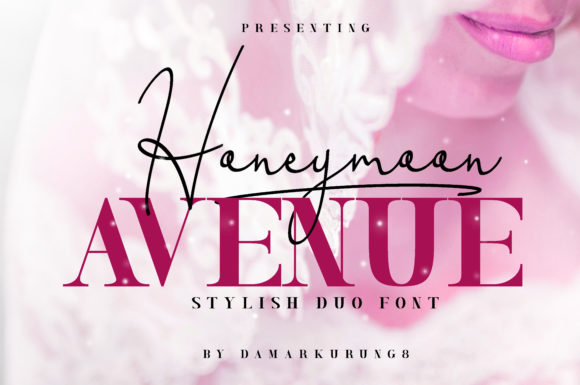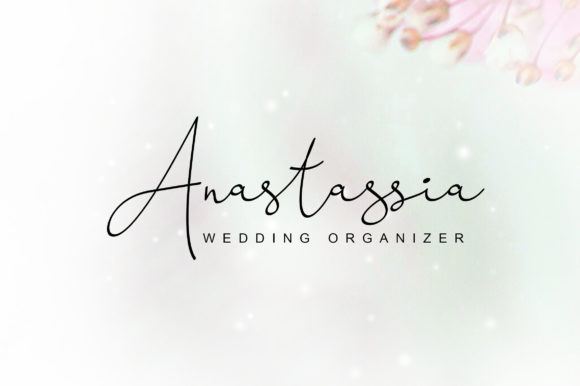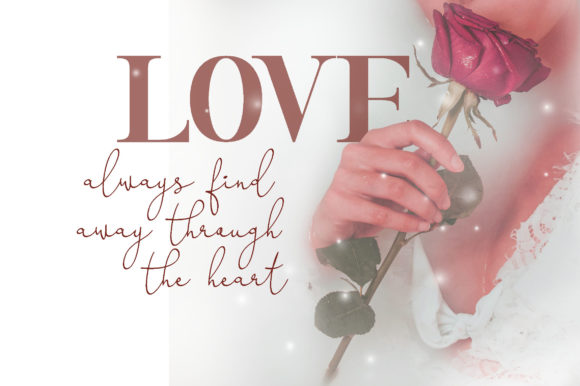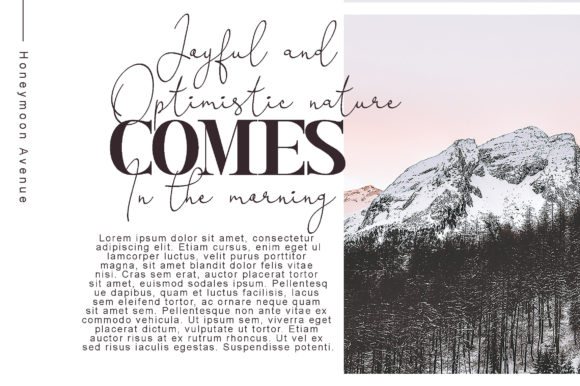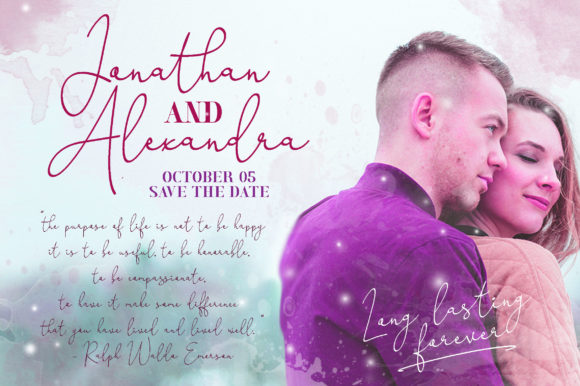
Honeymoon Avenue Font
About Honeymoon Avenue Font
The Honeymoon Avenue is a beautiful font duo. It has a smooth, handwritten style which is perfect for adding a natural look to your designs.
Both included fonts can be combined perfectly but are also amazing as strong stand-alones.